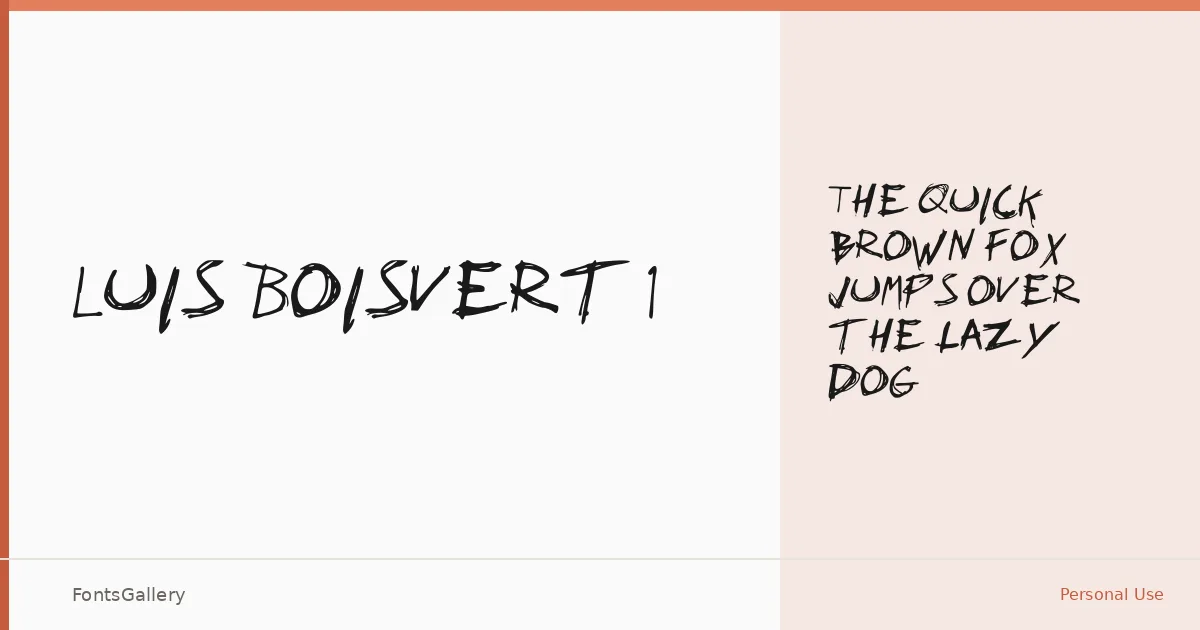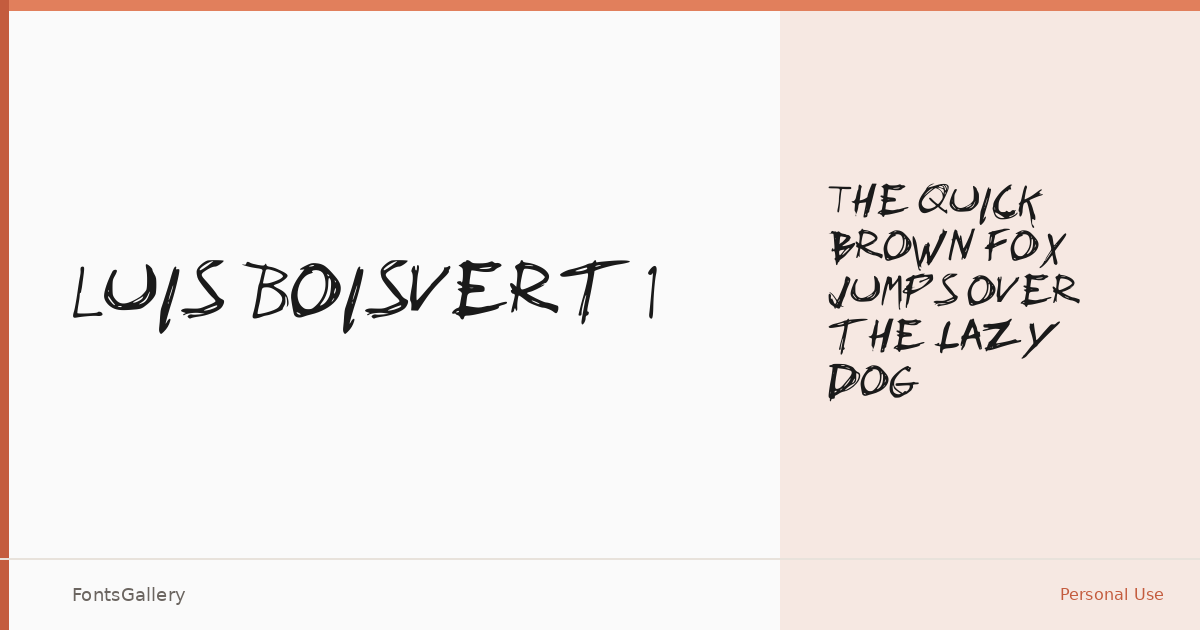
About Luis Boisvert 1 Font
There is something immediately hand-made about this script — the kind of mark that comes from a real pen moving quickly across paper, with all the roughness and personality that implies. Captured through fontcapture.com and copyrighted in 2009 by Luis Boisvert, it carries the irregular energy of genuine handwriting rather than the polished simulation of it. The single weight, Medium Medium, is confident enough to carry a headline without leaning on anything else.
This is a handwritten face with a distinctly grunge and rustic character — the kind of letterforms that feel worn-in, vintage, and deliberately rough around the edges. Bold in presence without being mechanical, the strokes have the texture of something scrawled on cardstock or screen-printed onto fabric. It ships as a TTF with installable embedding permissions and covers Latin script, though only partially, so extended Latin character sets should be tested against your copy requirements before committing.
It earns its keep in branding, logo work, poster headlines, t-shirt design, and social media graphics where a raw, vintage handmade quality is the whole point. For contrast, it pairs well against clean, neutral faces like Helvetica or the geometric clarity of AQUA, and it also holds its own alongside similarly characterful display types such as Aranea, Abrade, and Aresink. The pairing logic is simple: the rougher this looks, the cleaner its companion should probably be.